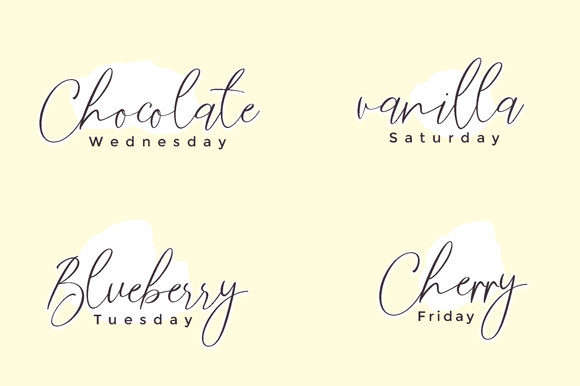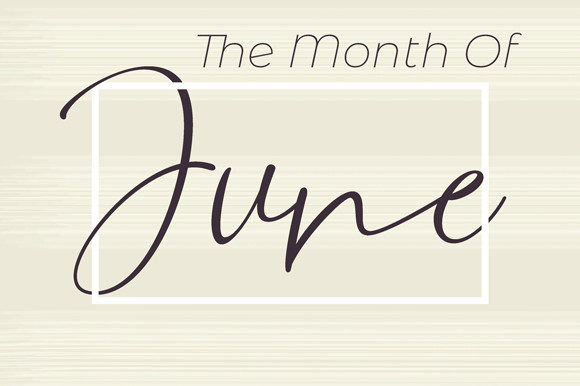
About Sofia Divios Script Font
Introducing “Sofia Divios Script,” a chic and romantic handwritten font that exudes sophistication and elegance. With its refined style and beautiful letterforms, this font is the perfect choice for adding a touch of class to your projects.
Sofia Divios Script captures the essence of elegance with its graceful curves and flowing lines. The delicate strokes and intricate details of each character create a sense of refinement and beauty. The font’s stylish alternates and ligatures add a touch of uniqueness, allowing you to customize and enhance the visual appeal of your designs.
Whether you’re working on wedding invitations, branding materials, logos, greeting cards, or any other project that requires a touch of romance and sophistication, Sofia Divios Script is the ideal font choice. Its versatility allows it to adapt to various design themes, from luxurious and upscale to feminine and delicate.
The font’s readability is carefully balanced to ensure that each letter is clear and legible. The consistent stroke weight and spacing between characters make Sofia Divios Script easy to read at different sizes and in various contexts. Whether used for headlines, body text, or decorative elements, the font maintains its elegance and clarity.
Sofia Divios Script’s refined and romantic style makes it a perfect match for projects that aim to evoke emotions and create a memorable impression. Its versatility extends to both digital and print mediums, allowing you to use the font in a wide range of applications. From digital graphics to printed materials, Sofia Divios Script adds a touch of sophistication and elegance to your designs.
With its chic and refined aesthetic, Sofia Divios Script elevates your projects to a new level of elegance. Whether you’re designing for weddings, fashion, beauty, or any other creative endeavor, this font adds a sense of luxury and class. Its stylish alternates and ligatures provide endless possibilities for customization, allowing you to create unique and eye-catching designs.
In summary, Sofia Divios Script is a chic and romantic font that brings sophistication and elegance to your projects. Its stylish alternates and ligatures enhance its versatility, making it a perfect match for a wide range of design themes. With its refined aesthetic and readability, Sofia Divios Script adds a touch of class to any project, leaving a lasting impression on your audience.